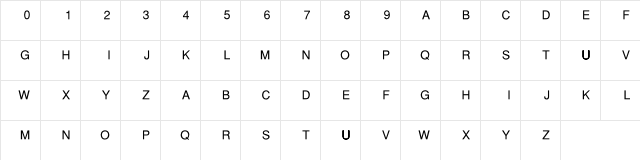
LHF Chesham Sans Regular
| Foundry | Arthur Vanson for Letterhead fonts |
| Designer | Arthur vanson for letterhead Fonts |
Design Context for LHF Chesham Sans Typeface
LHF Chesham Sans is a composed and adaptable typeface that performs quietly and consistently across a wide range of design contexts.